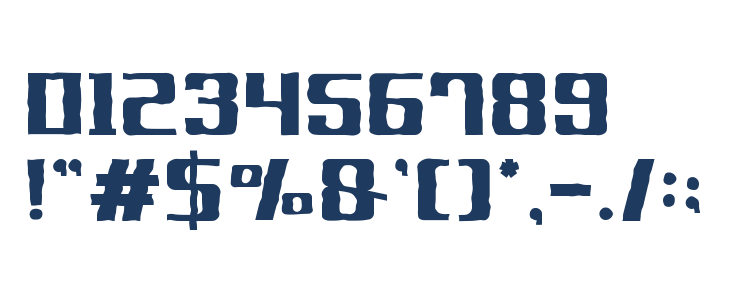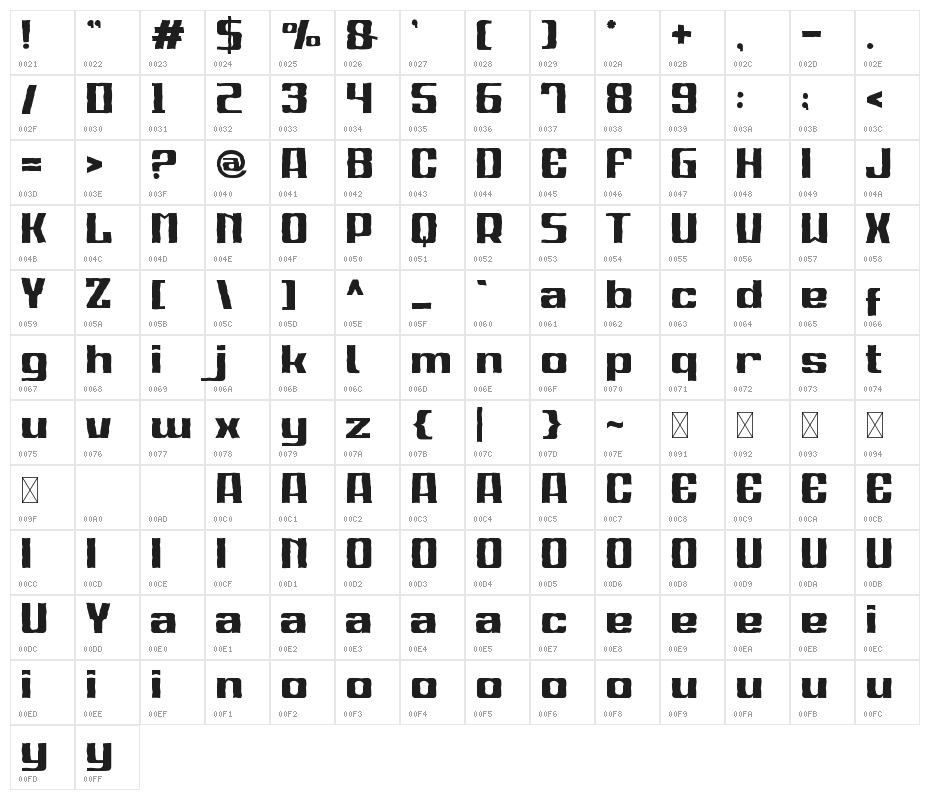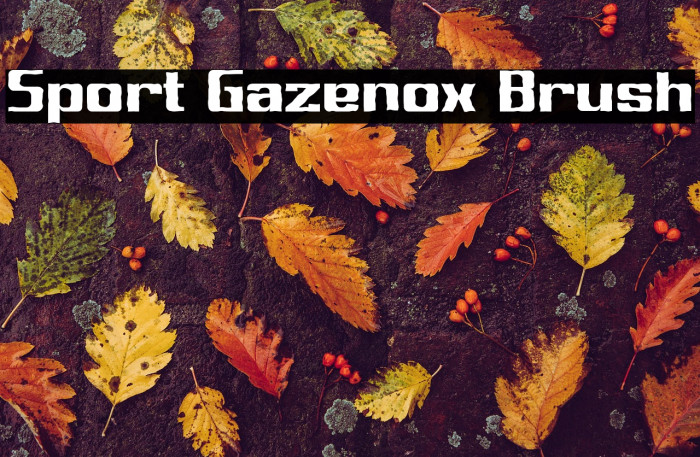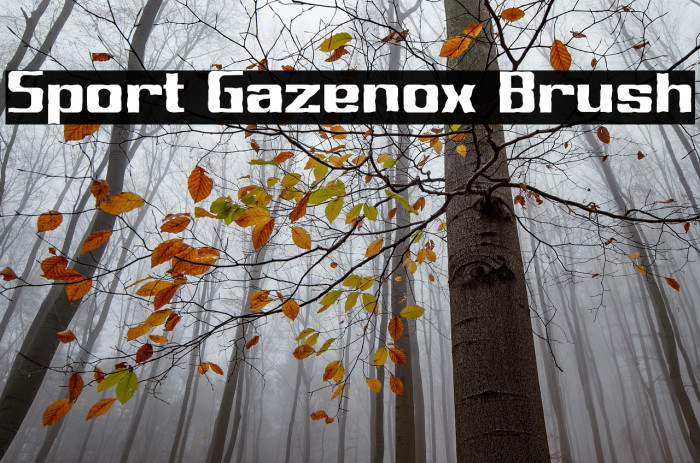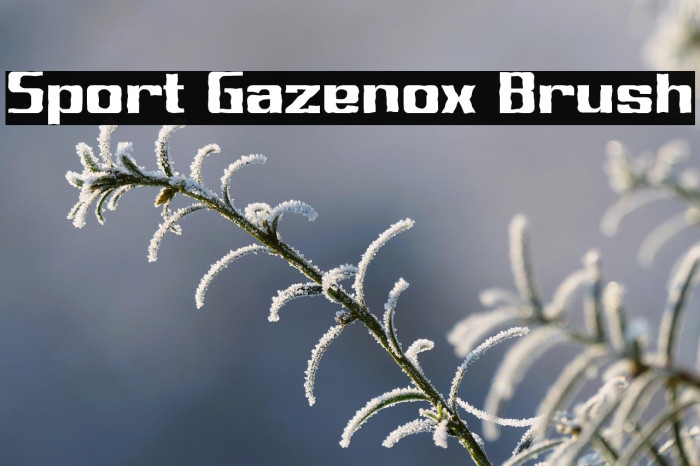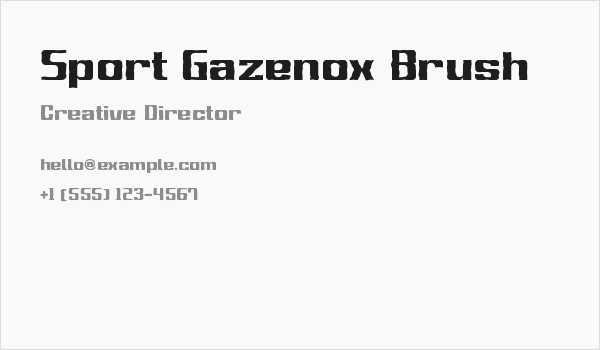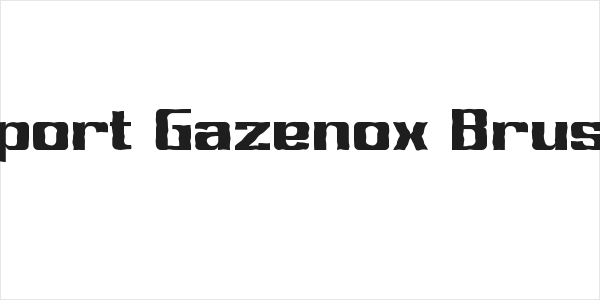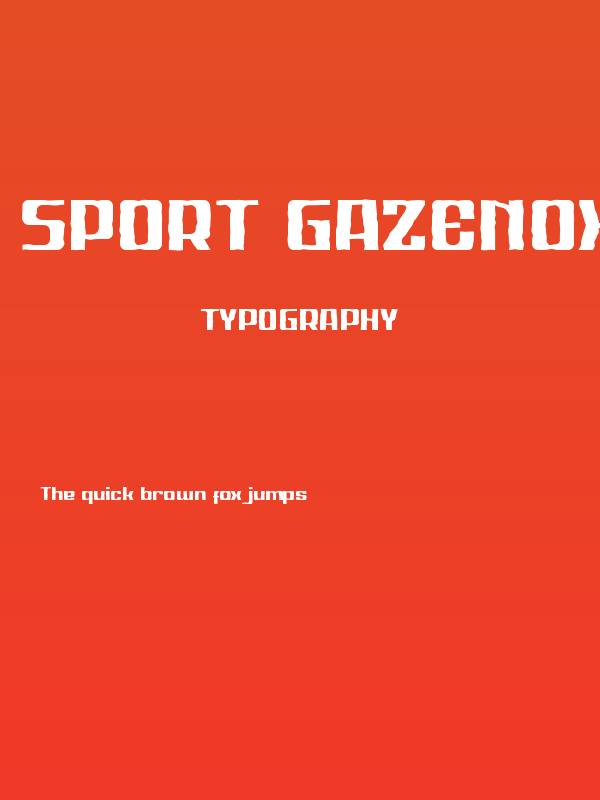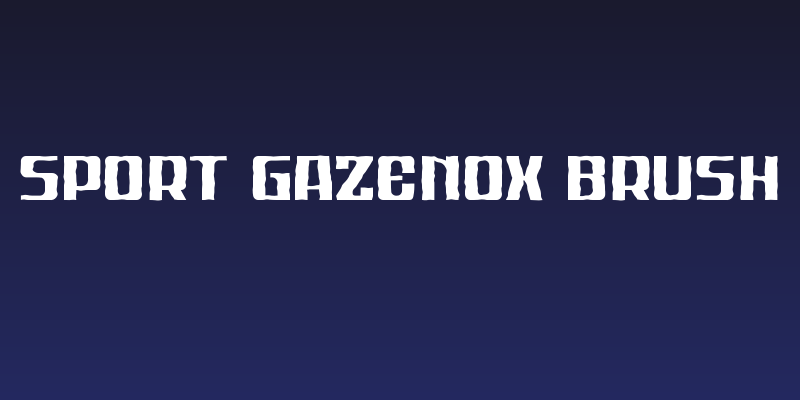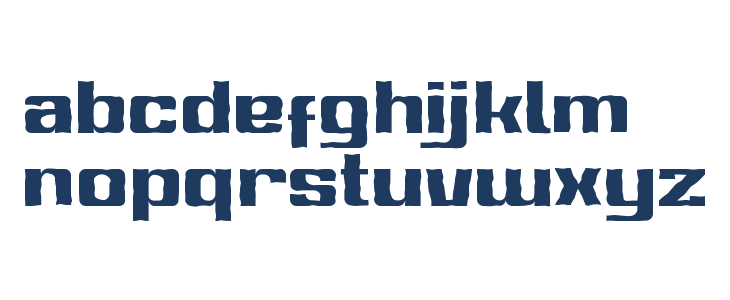
Sport Gazenox Brush Font
Sport Gazenox Brush Description
This font features a bold and dynamic brush style, characterized by its rugged and textured appearance. The uppercase and lowercase letters exhibit a consistent thickness with slight variations that mimic the natural flow of a brush stroke. The numerals and special characters maintain this aesthetic, providing a cohesive look across all glyphs. The font's design is energetic and impactful, making it suitable for projects that require a strong visual presence. Its unique style captures attention and conveys a sense of movement and creativity.
| Proposed Projects | Ideal for sports branding, posters, merchandise, and dynamic advertising campaigns. |